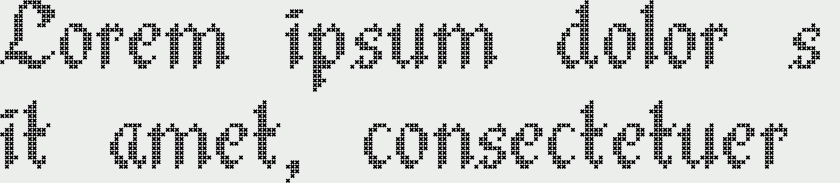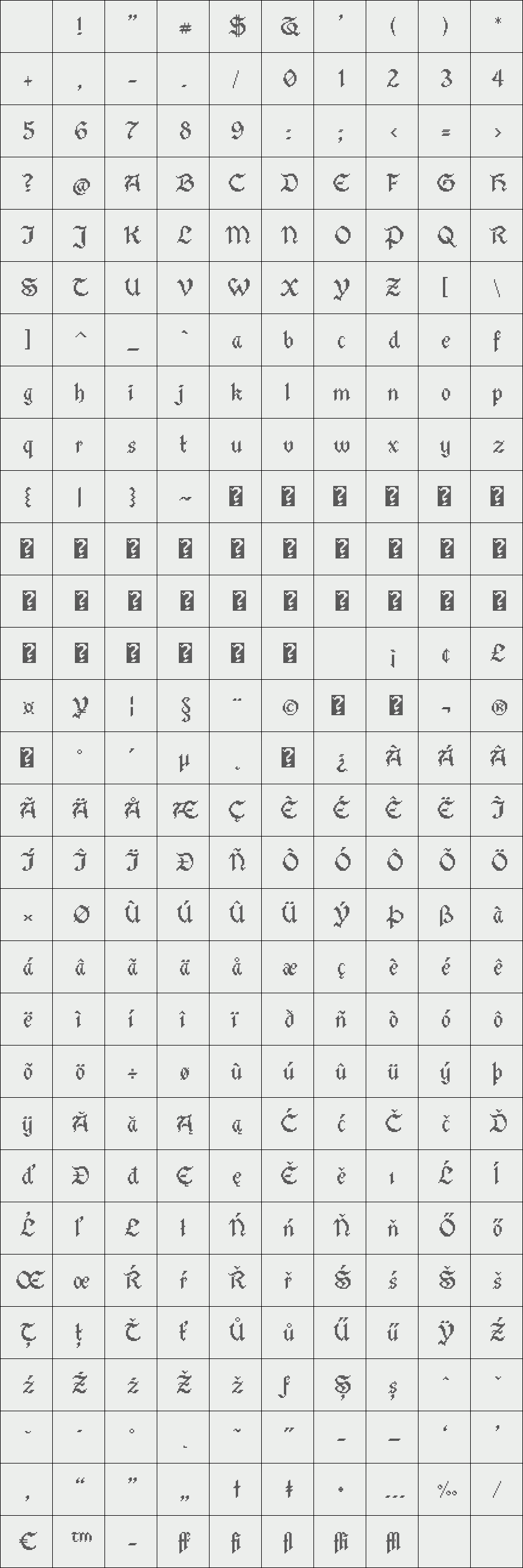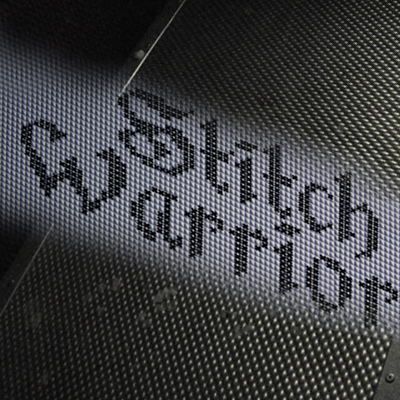
Stitch Warrior
Stitch Warrior is a a gothic style stitch font. It’s made of cross stitches (“x”) even the kerning - the distance between the letter pairs varies between 1, 2 or 3 stitches distance. I was trying to be as accurate and close to reality as possible. It can be pefectly used for stitch lettering or text pattern to create visual effects.